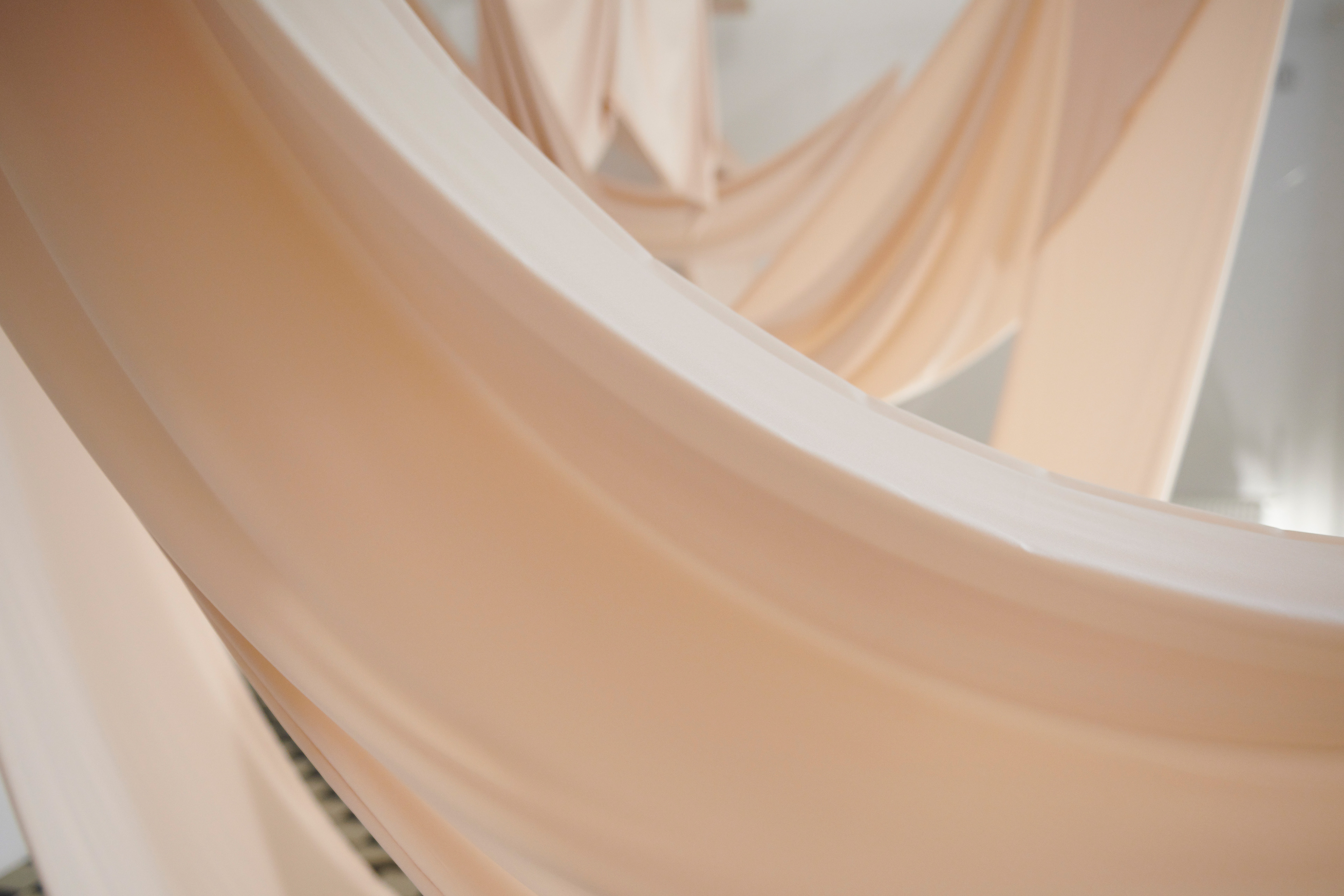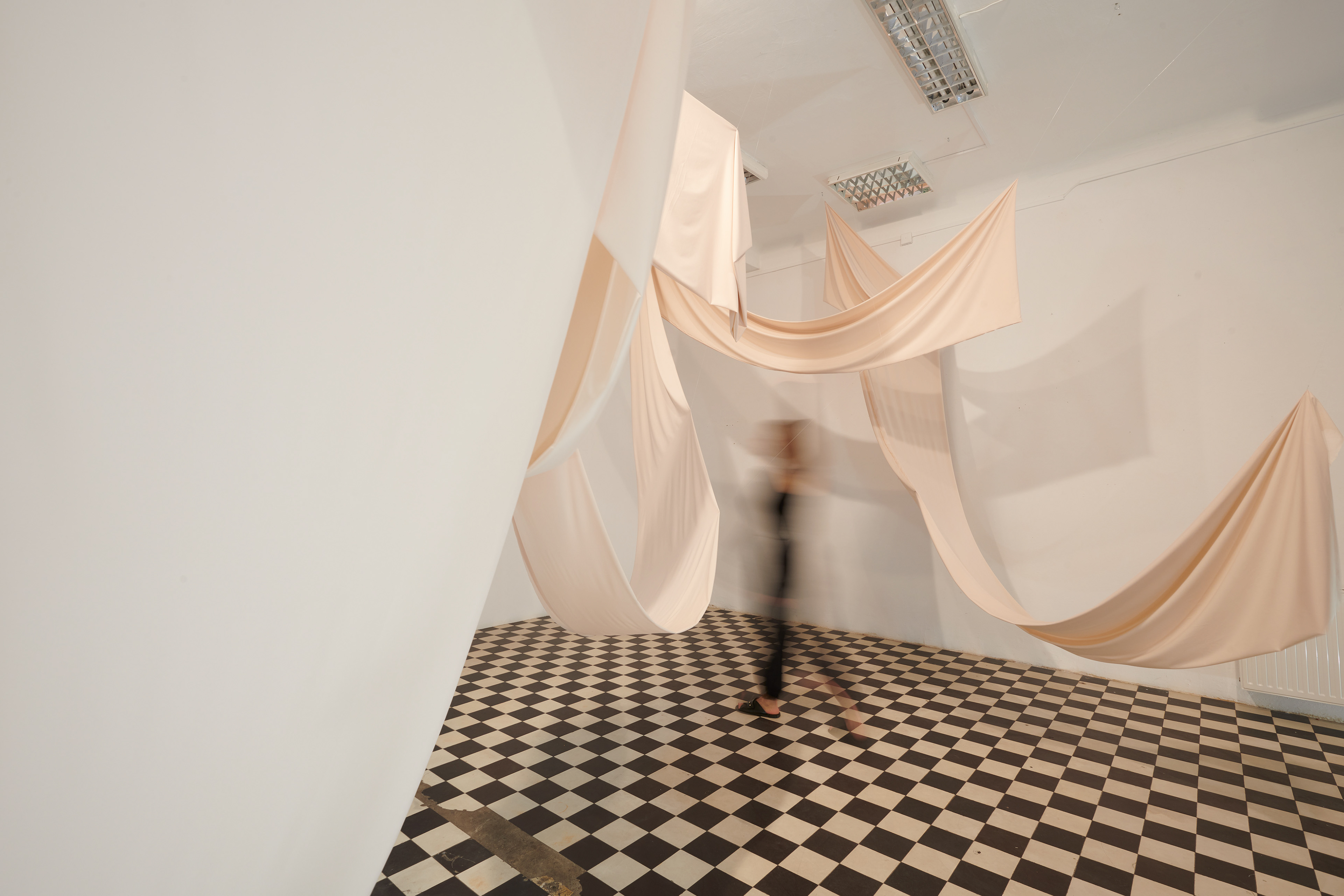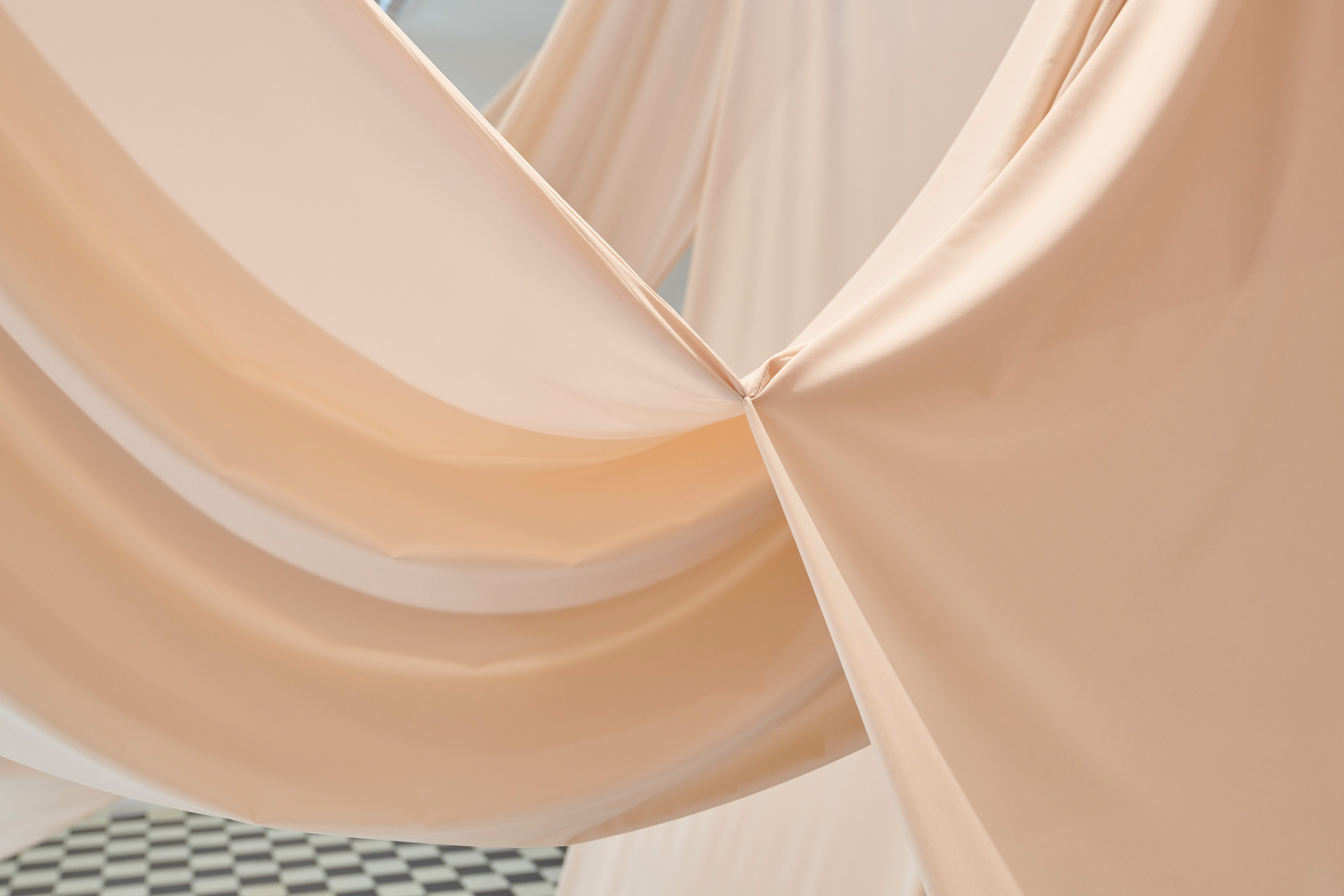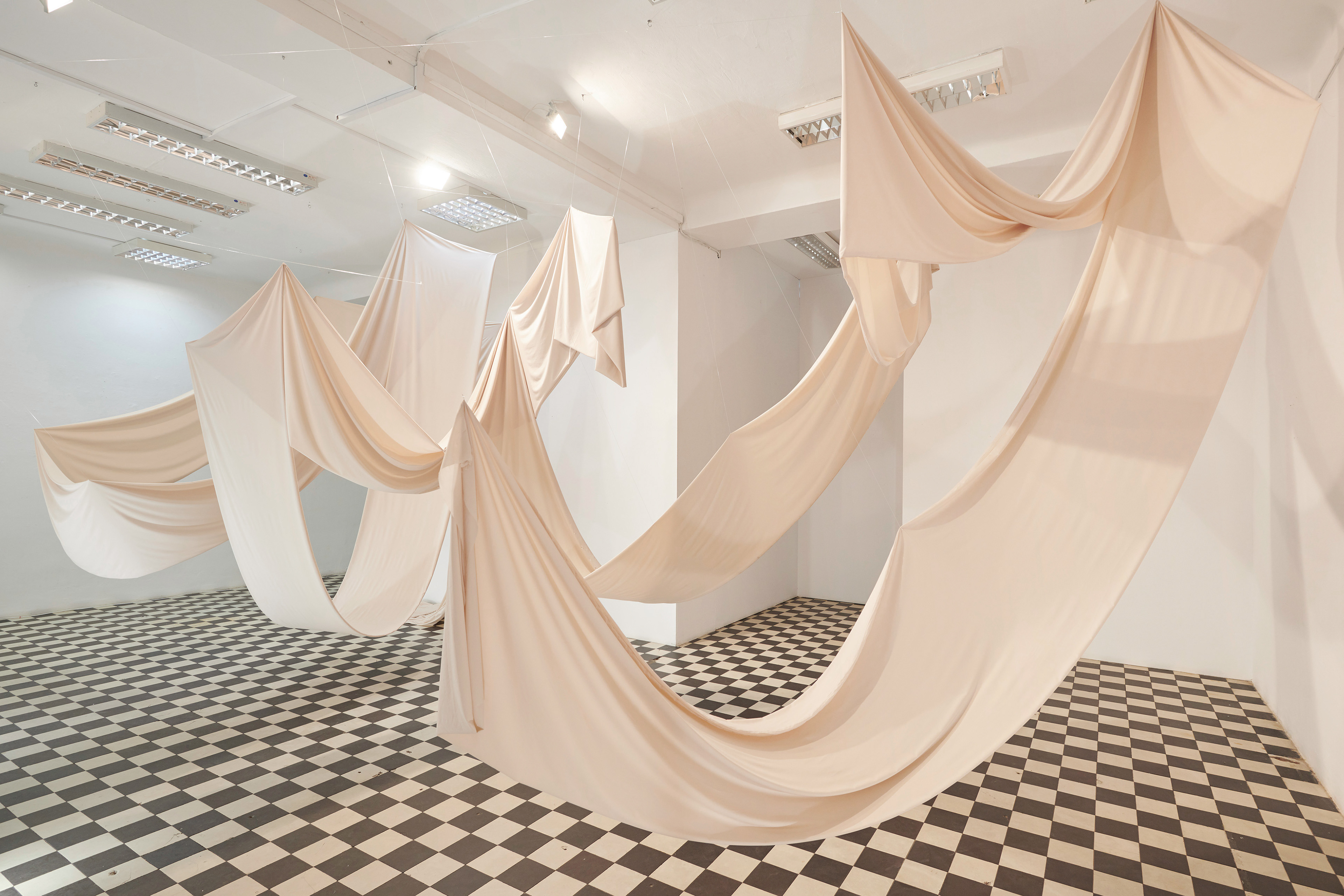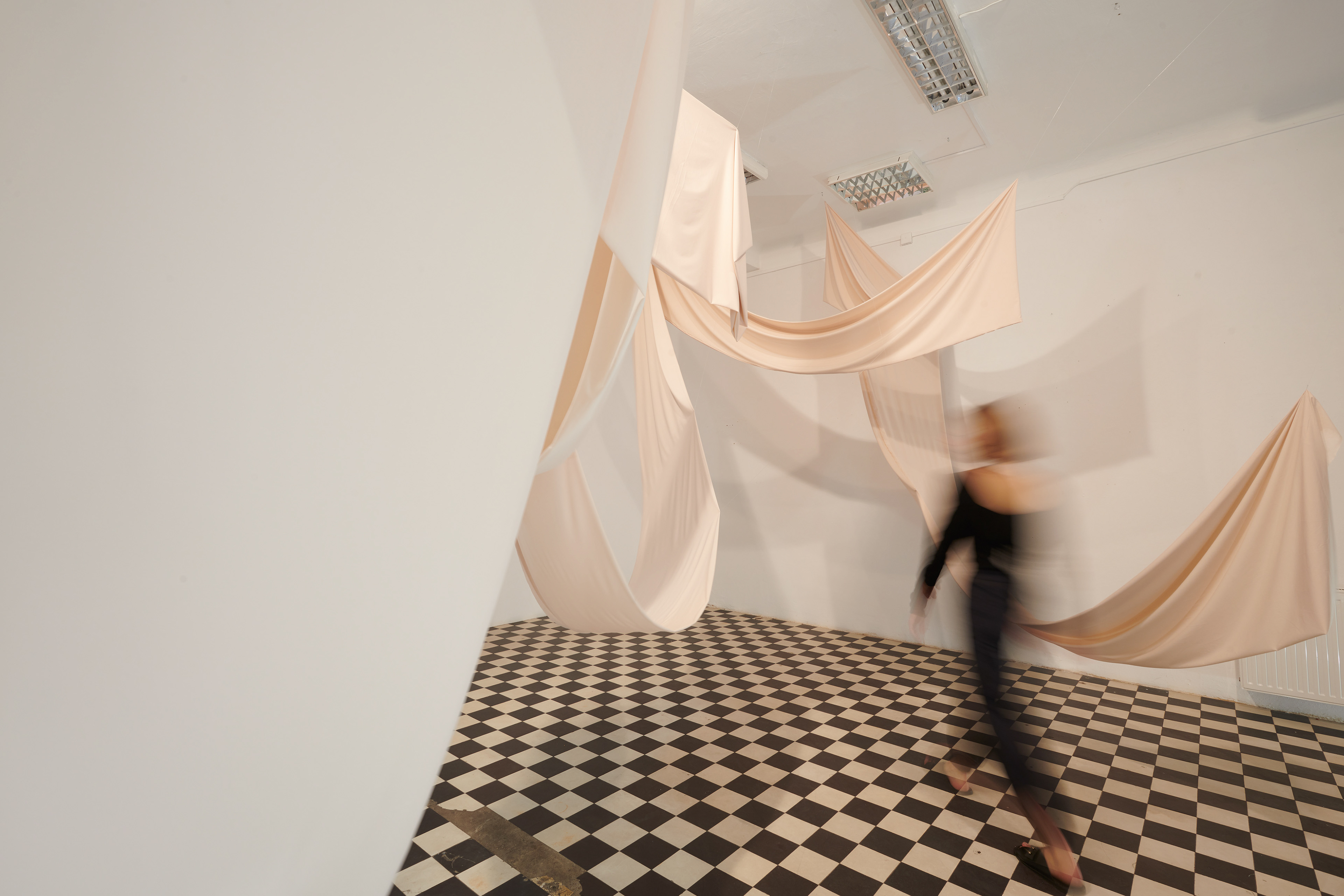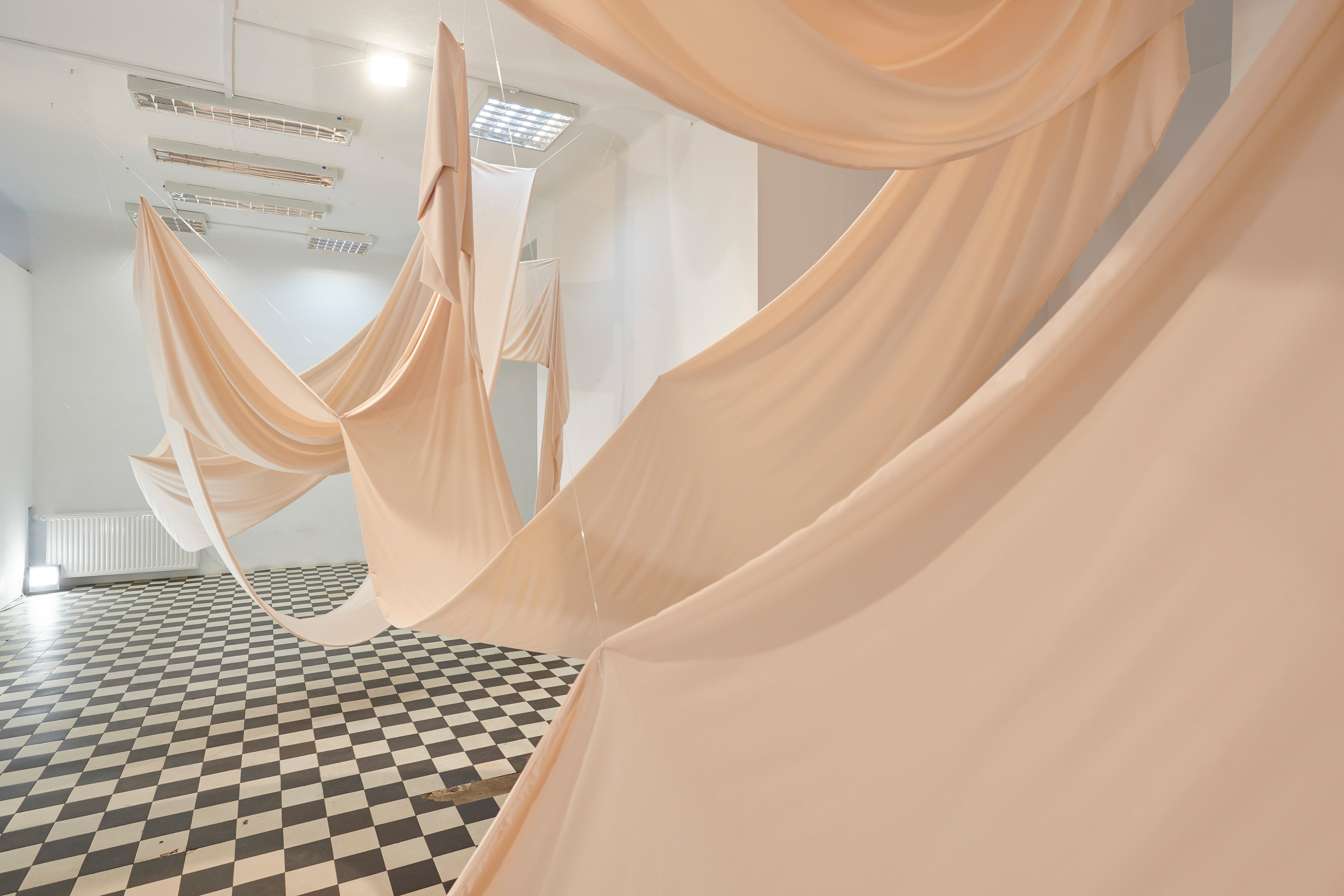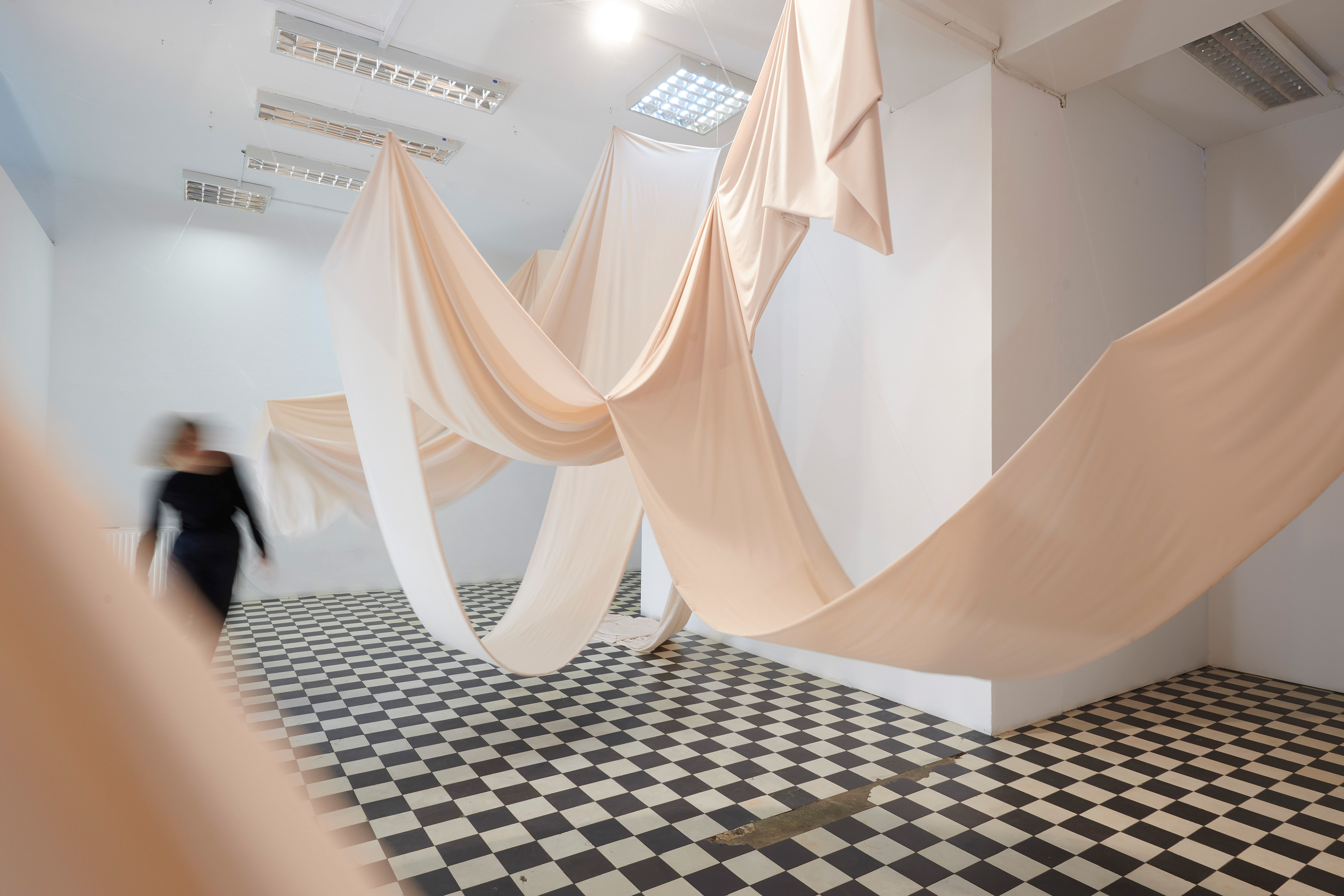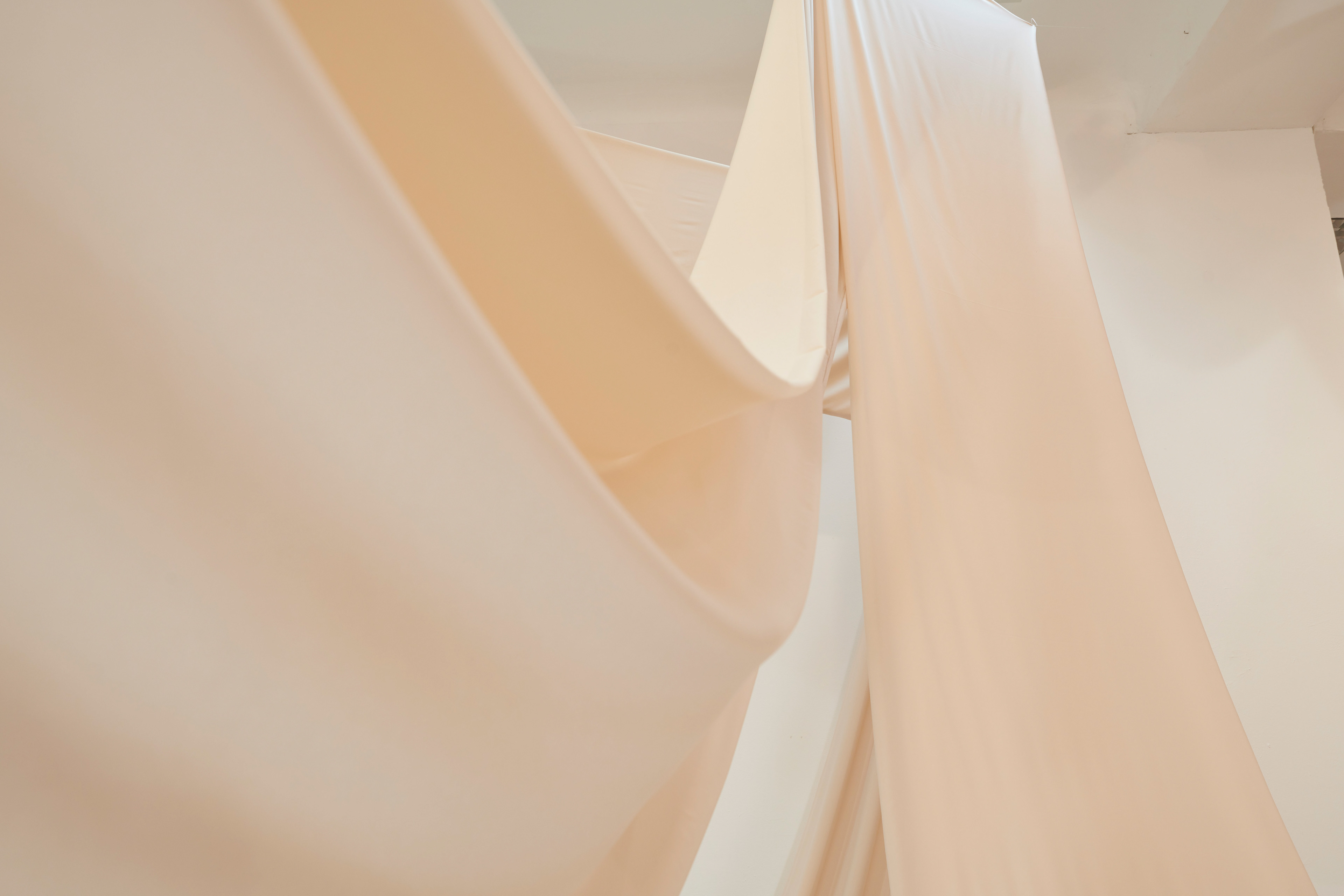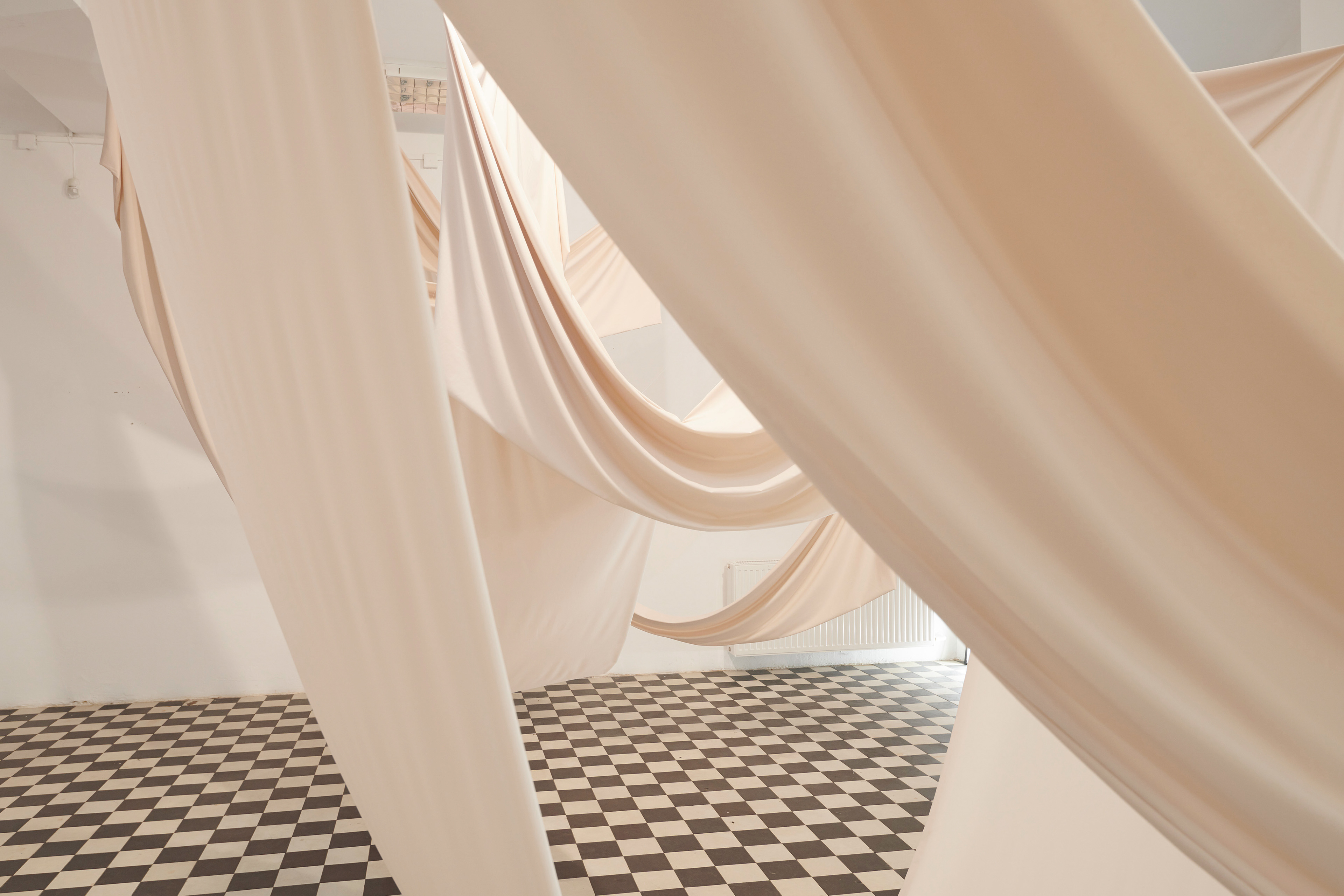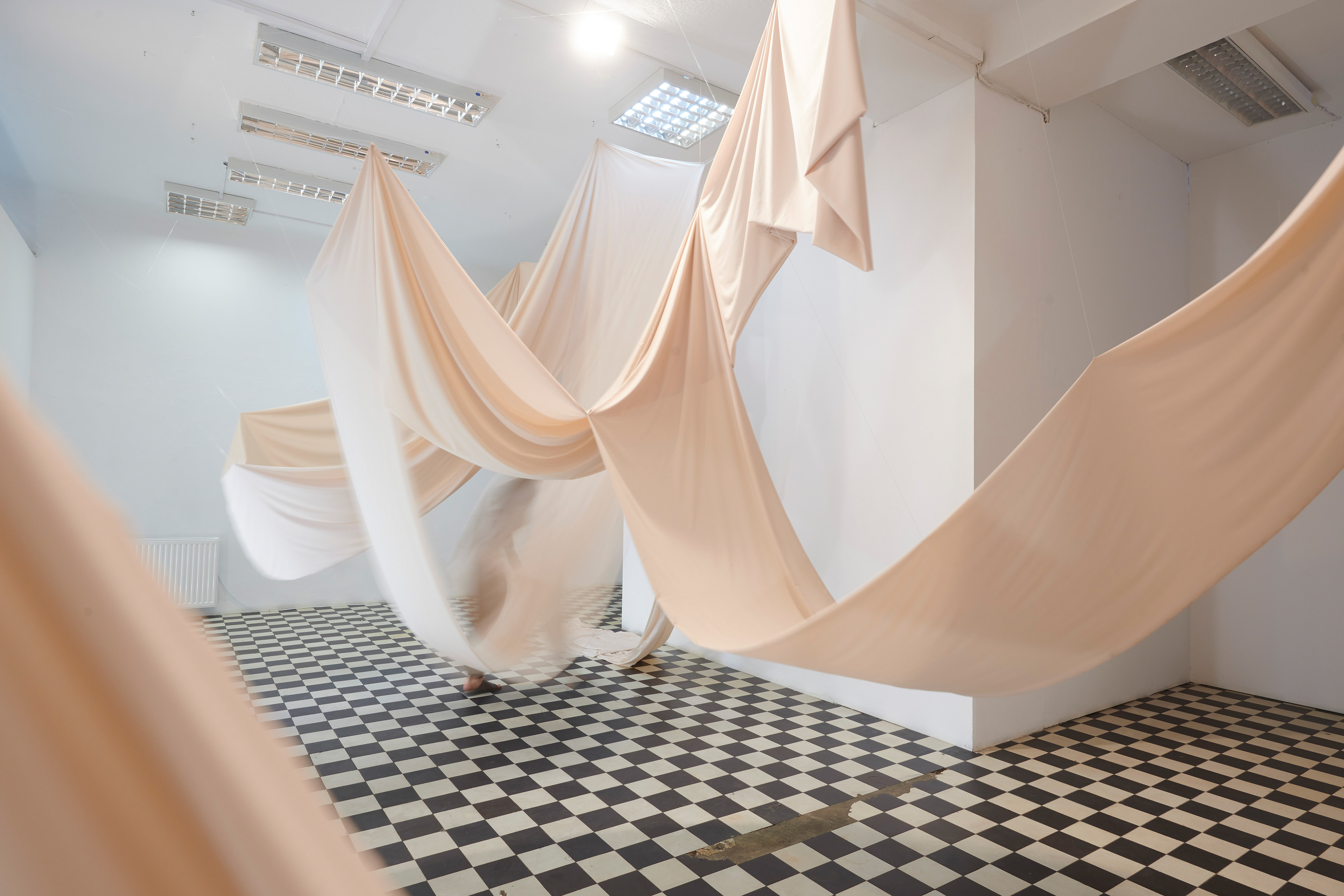
Project exploring aesthetic innovation within typography in space. In this case, the basis for the performative action was an installation constructed from a 50-meter-long suspended fabric in a gallery space, formed into the shape of three letters – a, c, t. The message echoed: “ACT,” directed at the visitor. By entering the typographic space, the viewer became a performer, moving between the letters and becoming the author of the choreography. Additionally, small motors occasionally moved the letters to provoke the viewer’s reactions, causing vibrations.